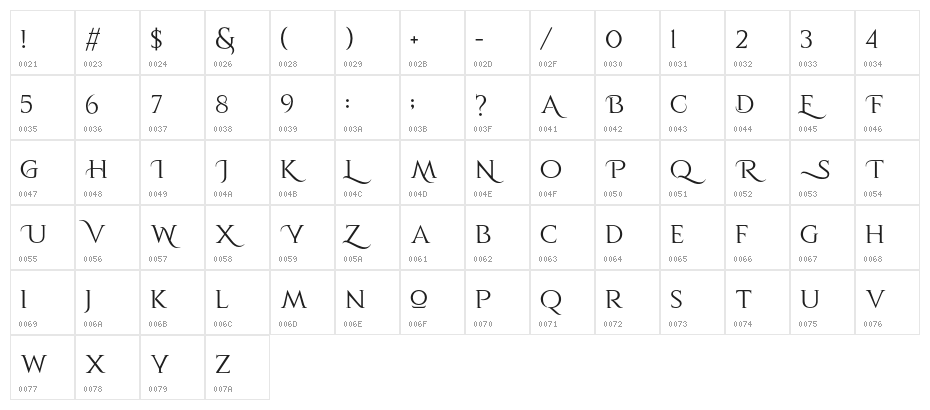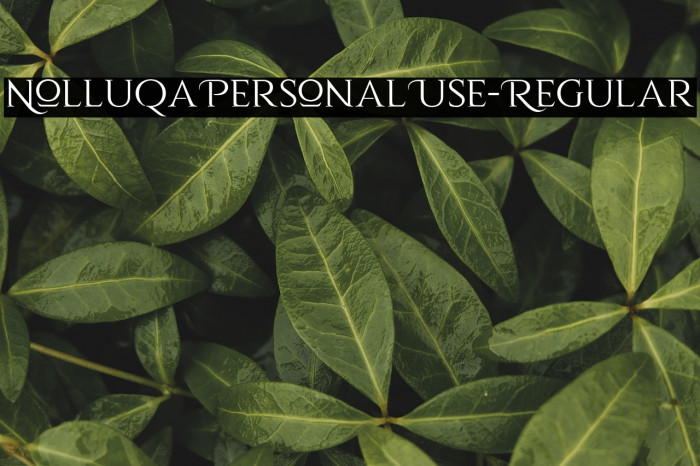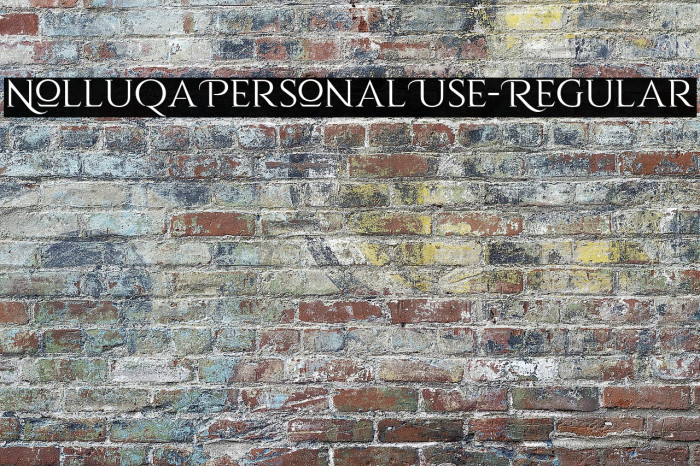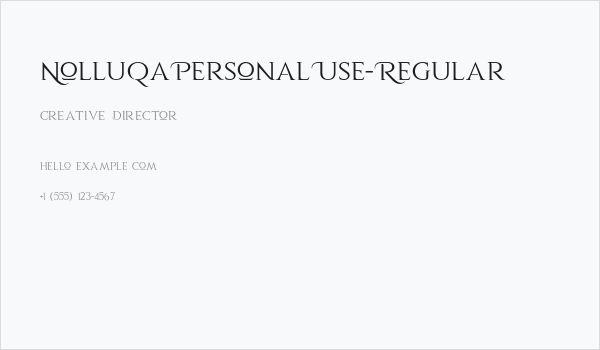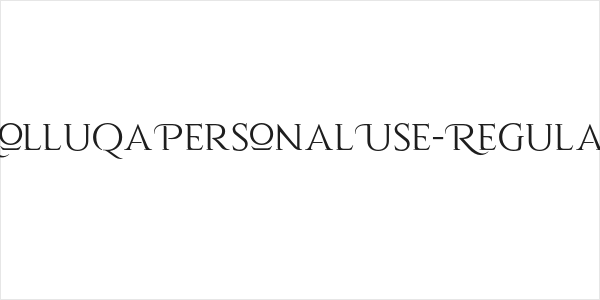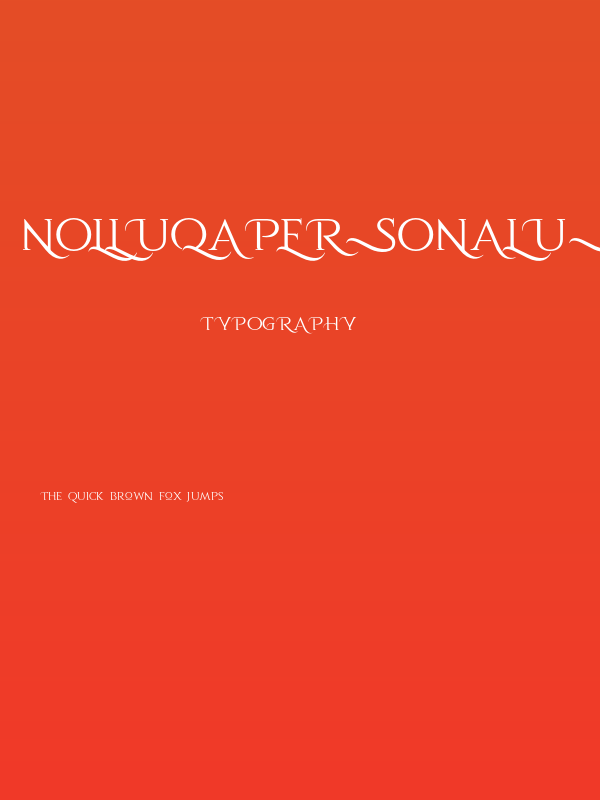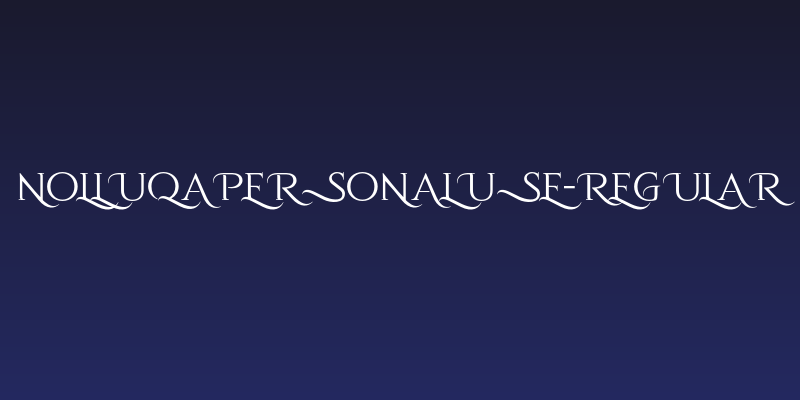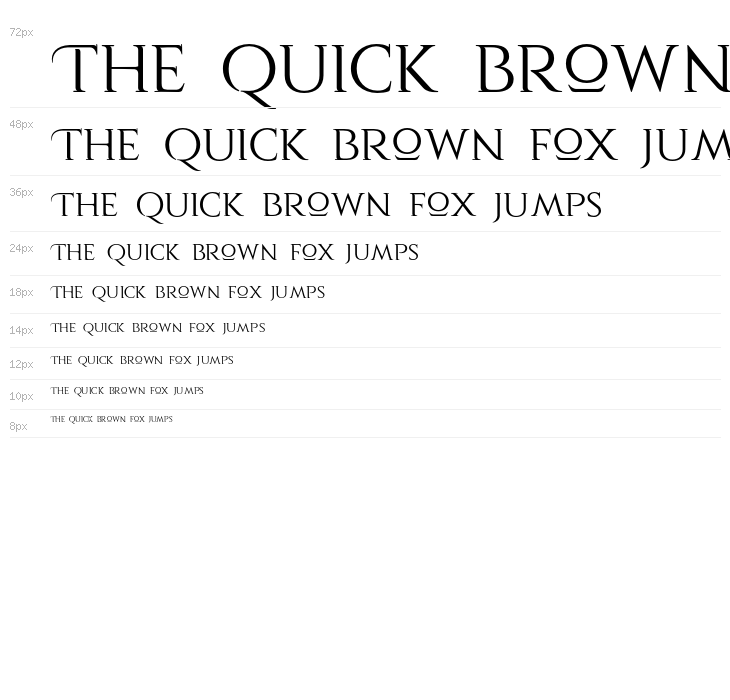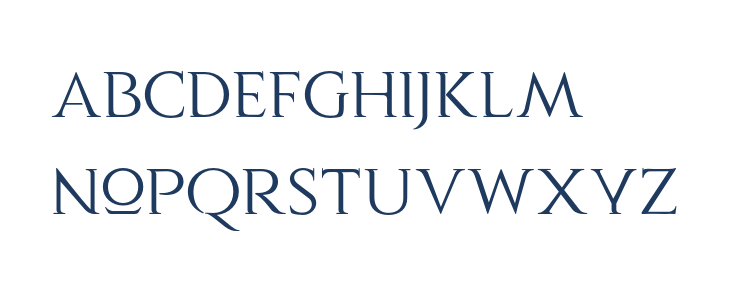
NolluqaPersonalUse-Regular Font
NolluqaPersonalUse-Regular Description
This font features a unique blend of classic and modern elements, characterized by its elegant and flowing serifs. The uppercase letters exhibit a distinct flair with extended strokes and subtle curves, creating a sense of movement and sophistication. The lowercase letters maintain a consistent style, complementing the uppercase with their graceful forms. Numbers are clear and well-defined, ensuring readability. Special characters are thoughtfully designed, adding to the font's versatility. Overall, this font exudes a refined and artistic quality, making it suitable for a variety of creative applications.
| Proposed Projects | Ideal for wedding invitations, luxury branding, editorial design, and artistic posters. |